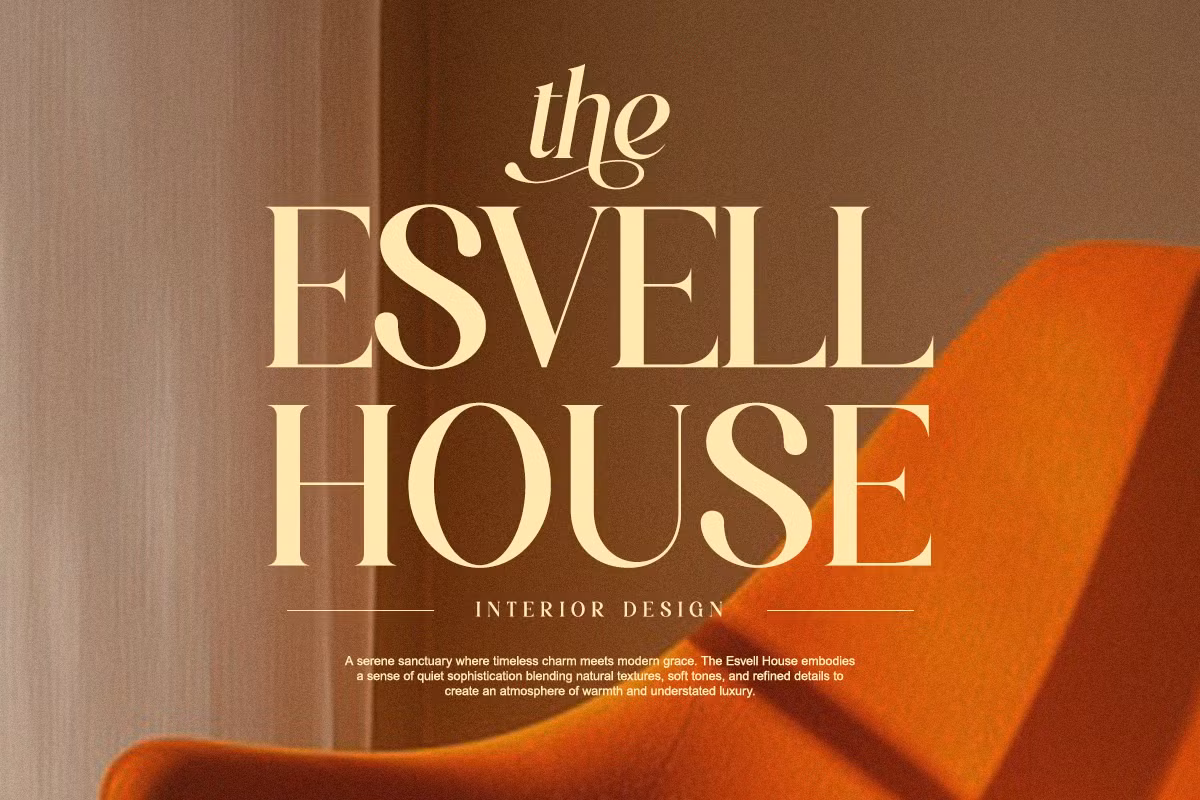
Kealuna: Elegant Luxury Serif Font for Sophisticated Design
Kealuna - Elegant Luxury Serif Font
Introducing Kealuna: A Luxurious Serif Font
Kealuna is a high-end serif font that brings a sense of elegance and warmth to modern design. It has beautiful ligatures and smooth curves that make it look really nice. This font is special because it’s not just about looking good, it’s about making a statement. It’s perfect for designers who want to show sophistication in their work. If you’re working on a project for a fancy fashion brand, or making packaging for beauty products, or even designing wedding invitations, Kealuna is a great choice.
It can help take your designs to the next level and make them look really classy. With Kealuna, you can create something that’s not just beautiful, but also timeless. It’s a great way to add some extra flair to your designs and make them stand out. Whether you’re looking to create a luxurious feel or just want to add some extra elegance to your work, Kealuna is a great font to use. It’s versatile and can be used in a lot of different ways, from branding and packaging to stationery and more.
Elegant example of typography using the Kealuna font
Typography showcasing the elegance of Kealuna.
Overall, Kealuna is a great choice for anyone who wants to add a touch of sophistication and elegance to their designs.
Design Style of Kealuna
Kealuna’s design is all about balance and style. It has beautiful, flowing lines that make it easy to read, but also give it a high-end feel. The curves are smooth and elegant, which makes it perfect for important projects where you want to make a good impression. Designers love Kealuna because it’s versatile – you can use it for big headlines or smaller body text, and it still looks great.
It’s a great choice when you want to add a touch of sophistication to your work. Whether you’re working on a big project or just need a font that looks nice, Kealuna is a good option. Its elegant look and feel make it stand out, and its readability makes it practical too.
Ligatures and Alternates
What makes Kealuna special is the way it brings together a bunch of beautiful ligatures and alternates. These things let you create really cool and unique typographic compositions that add a personal touch to your work. When you use ligatures, it can make your text look nicer and flow better, which makes it more fun to read.
Example of ligatures and alternates in Kealuna font
Showcasing ligatures and alternates in Kealuna.
And with alternates, you get to pick the letterforms that fit your brand’s style, so you can make your project look just the way you want it to. This means you can play around with different looks and feels until you find the one that’s just right for you. By having all these options, you can make your text stand out and really make an impact.
Character Sets and Multilingual Support
Kealuna is a great font for many design projects because it has a complete set of uppercase and lowercase letters. It’s also PUA encoded, which makes it easy for designers to use special characters and ligatures on different platforms. Plus, Kealuna supports many languages, so you can use it to create designs that people all around the world can understand.
This makes it a really useful font for anyone who wants to communicate with a global audience. With Kealuna, you can make sure your message gets across, no matter what language your audience speaks. It’s a versatile font that can be used in many different ways, from creating beautiful typography to designing websites and more.
Creative use of Kealuna font in branding
Creative applications of Kealuna in various designs.
Overall, Kealuna is a great choice for designers who want a font that’s both stylish and practical.
Perfect for Diverse Applications
Kealuna is really versatile, which makes it perfect for a lot of different design situations. Let’s take a look at some of the main ways it can be used.
• Luxury Branding: Create elegant logos and branding materials that speak to a sophisticated audience.
• Fashion Logos: Utilize Kealuna’s graceful lines to design logos that capture the essence of high fashion.
• Beauty Brands: Develop packaging and promotional materials that exude luxury and refinement.
• Wedding Invitations: Set the tone for elegant celebrations with beautifully crafted wedding stationery.
• Editorial Headlines: Draw attention to articles and features with impactful, stylish headlines.
• Social Media Design: Enhance your online presence with visually stunning graphics that stand out.
Pairing Suggestions for Kealuna
Choosing the right fonts to go together is really important for making a design look good. If you’re using Kealuna, it’s a good idea to pair it with simpler fonts that don’t have the extra lines and curves, like sans-serif fonts. This helps create a nice balance and makes the design easier to look at.
Whether you’re creating something for the fashion or beauty industry, planning a wedding, or working on an editorial piece, Kealuna is the ideal choice to take your designs to the next level and make a lasting impact. By incorporating Kealuna into your work, you can turn your creative ideas into stunning pieces of art that exude elegance and sophistication.